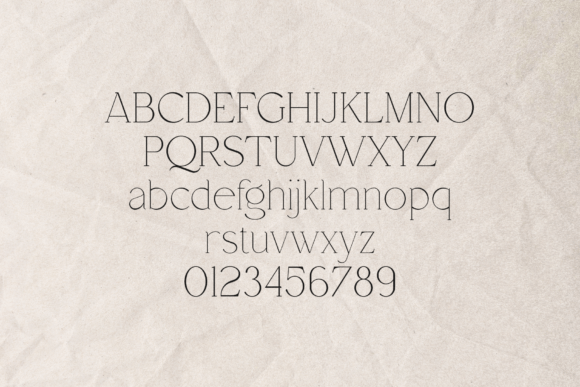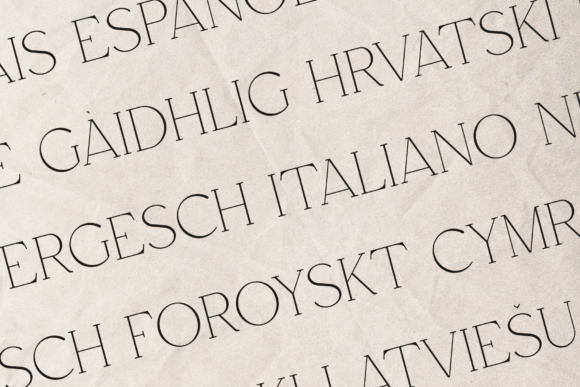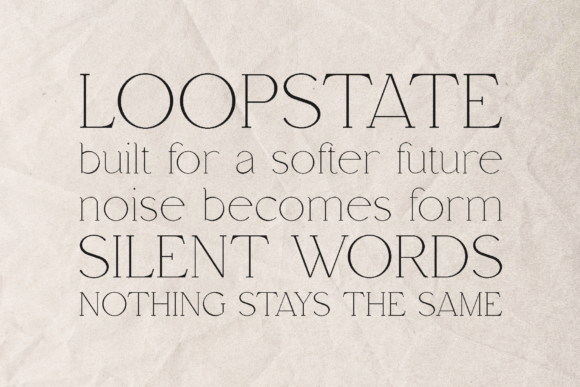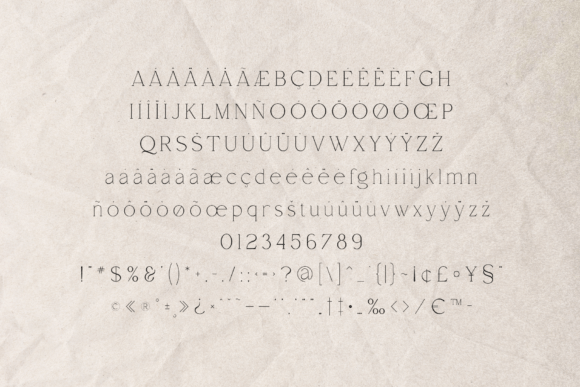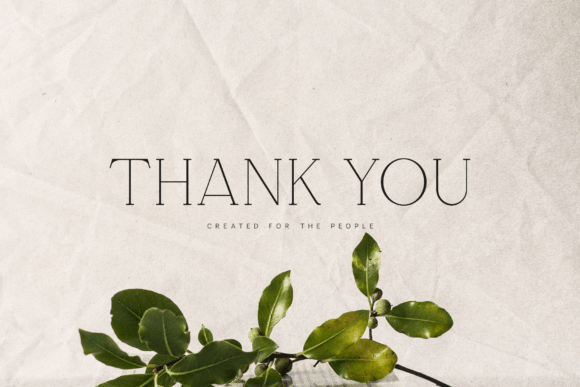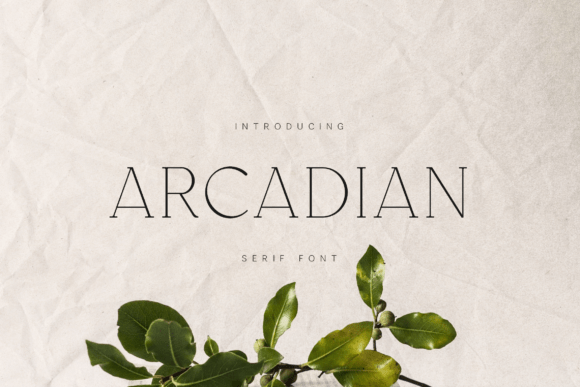
The Elegant Arcadian Font: A Timeless Choice for Designers
I’ll never forget the design project that led me to discover the Arcadian font. I was working on a poetry book layout, and my client requested a serif font that exuded elegance and sophistication. After hours of searching, I stumbled upon Arcadian, and it was love at first sight. Its classic, refined aesthetic and gentle curves instantly resonated with the project’s tone and style. In this article, I’ll share my experience with Arcadian, its features, and how to make the most of this beautiful font.
An Honest Review of Arcadian
- ✨ Elegant and classic serif design inspired by timeless typography
- ✅ Balanced letterforms, gentle contrast, and graceful curves for a calm, literary voice
- 🌟 Versatile for both display text and short passages, making it perfect for various design projects
- 📚 Works beautifully for editorial layouts, books, poetry, magazines, branding, and cultural projects
While Arcadian is an exceptional font, there are a few minor considerations to keep in mind:
- 🤔 Limited availability of stylistic alternates, which might not offer as much flexibility for certain designs
- ⚠️ May not be the best choice for very large or very small font sizes, as its elegance might get lost
The Backstory of Arcadian
Arcadian was designed with the goal of creating a timeless, elegant serif font that embodies the spirit of classic typography. Inspired by the works of renowned typographers, Arcadian’s creator aimed to craft a font that exudes quiet refinement and sophistication. The result is a font that feels both traditional and contemporary, making it perfect for a wide range of design projects.
Q: What makes Arcadian a great choice for editorial layouts?
A: Arcadian’s elegant design, balanced letterforms, and gentle contrast make it an excellent choice for editorial layouts, as it provides a calm, literary voice that engages readers.
Q: Can I use Arcadian for digital media?
A: Yes, Arcadian works beautifully for digital media, including websites, magazines, and social media graphics. Its clean structure and soft rhythm create a natural reading flow, making it perfect for digital publications.
Q: Is Arcadian suitable for large font sizes?
A: While Arcadian is elegant and refined, it may not be the best choice for very large font sizes, as its subtlety might get lost. However, it works beautifully for display text and headings in smaller sizes.
Q: Can I use Arcadian for body text?
A: Yes, Arcadian is suitable for body text, especially for long-form reading. Its classic design and gentle curves create a comfortable reading experience, making it perfect for books, articles, and essays.